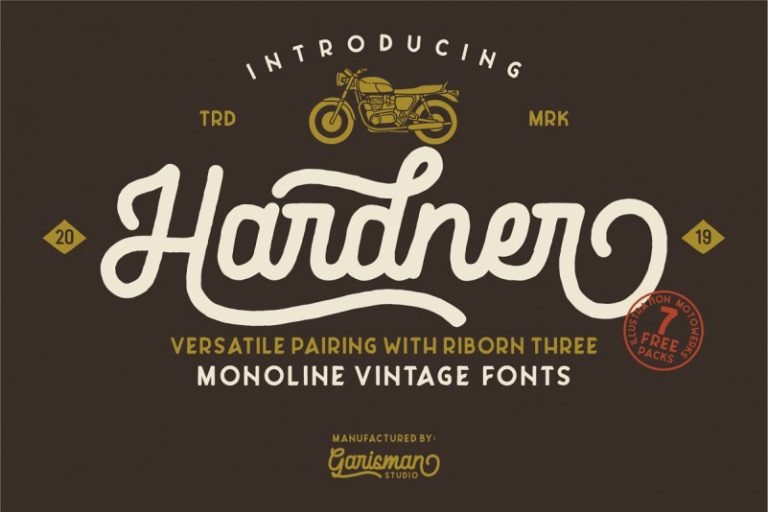
Hardner Vintage Font
This is a beautiful font and vintage font, that are combined into pretty package. You will see this combination more in badges logos. Introducing Hardner Font. Hardner Vintage Font born from inspiring vintage motorcycle stlye. And this fonts is handmade modern vintage monoline display typefaces, available with different opentype style characther and paired font with RIBORN Three (Included FREE on this product).
Versatile for many project you needed, like a logo type, handlettering, branding, label, t-shirt design, poster and many more.